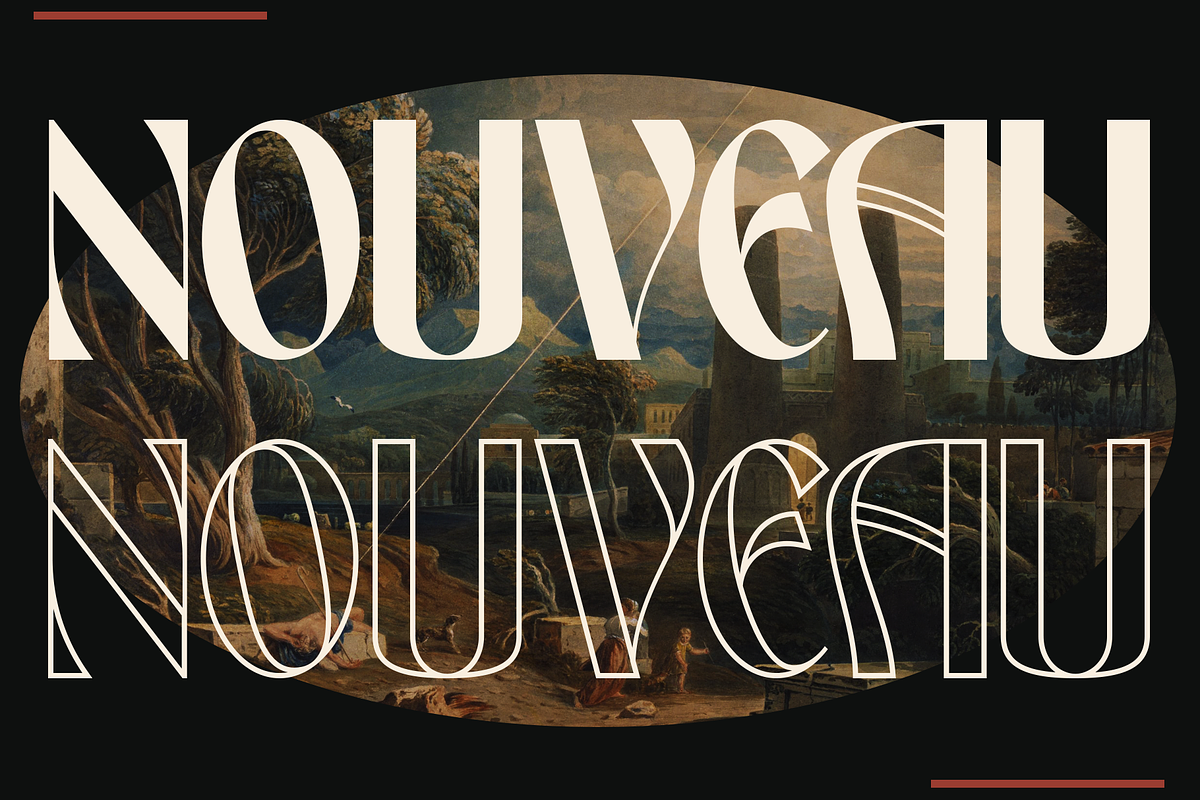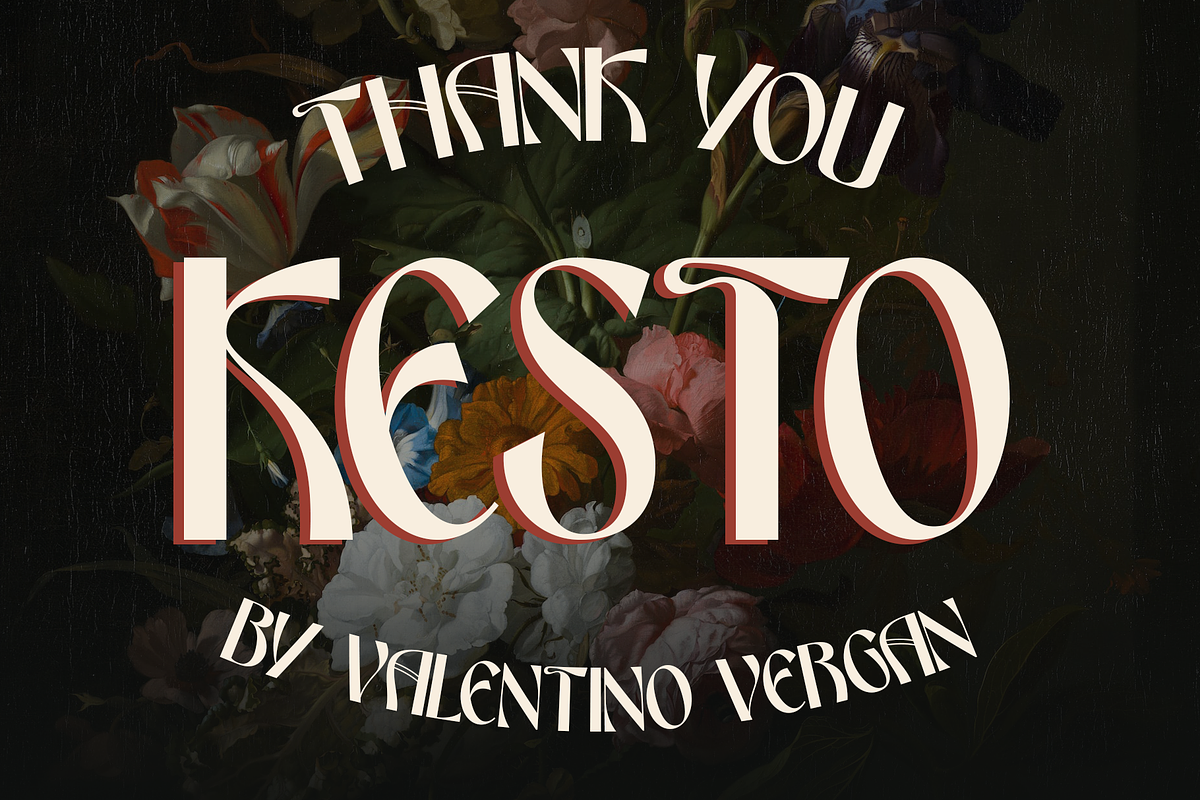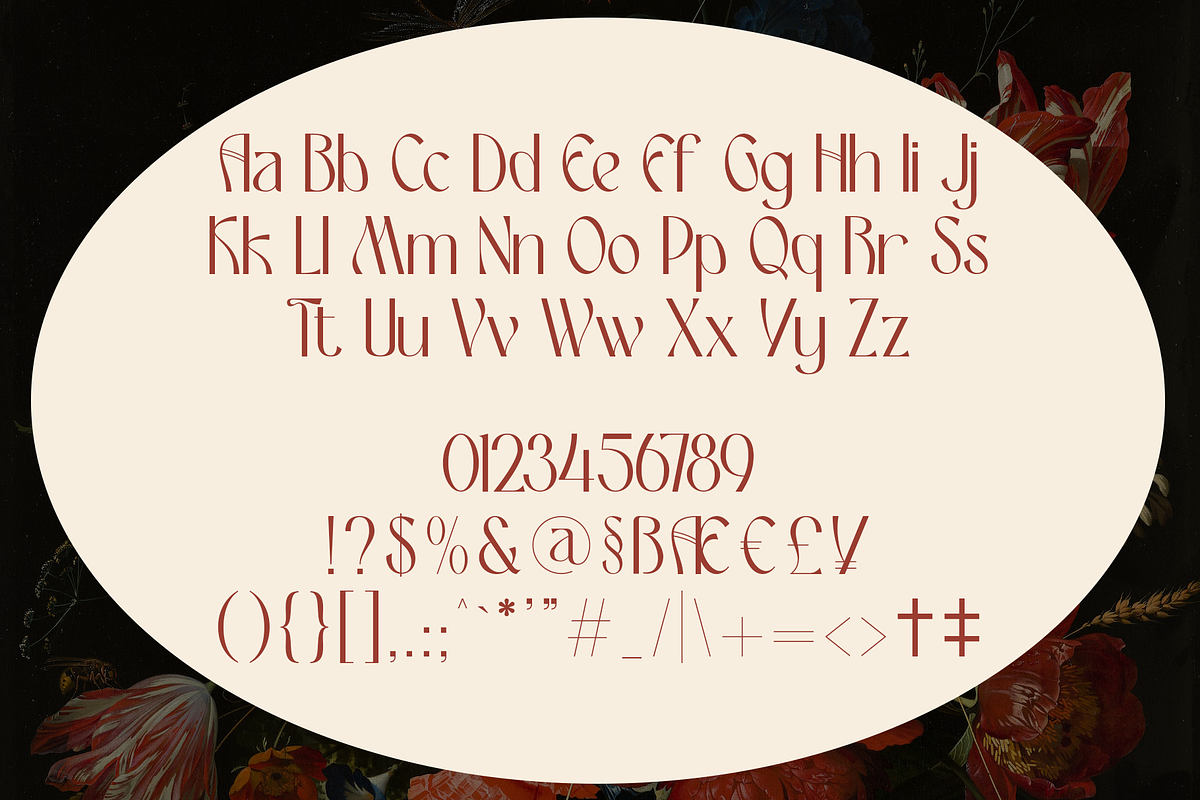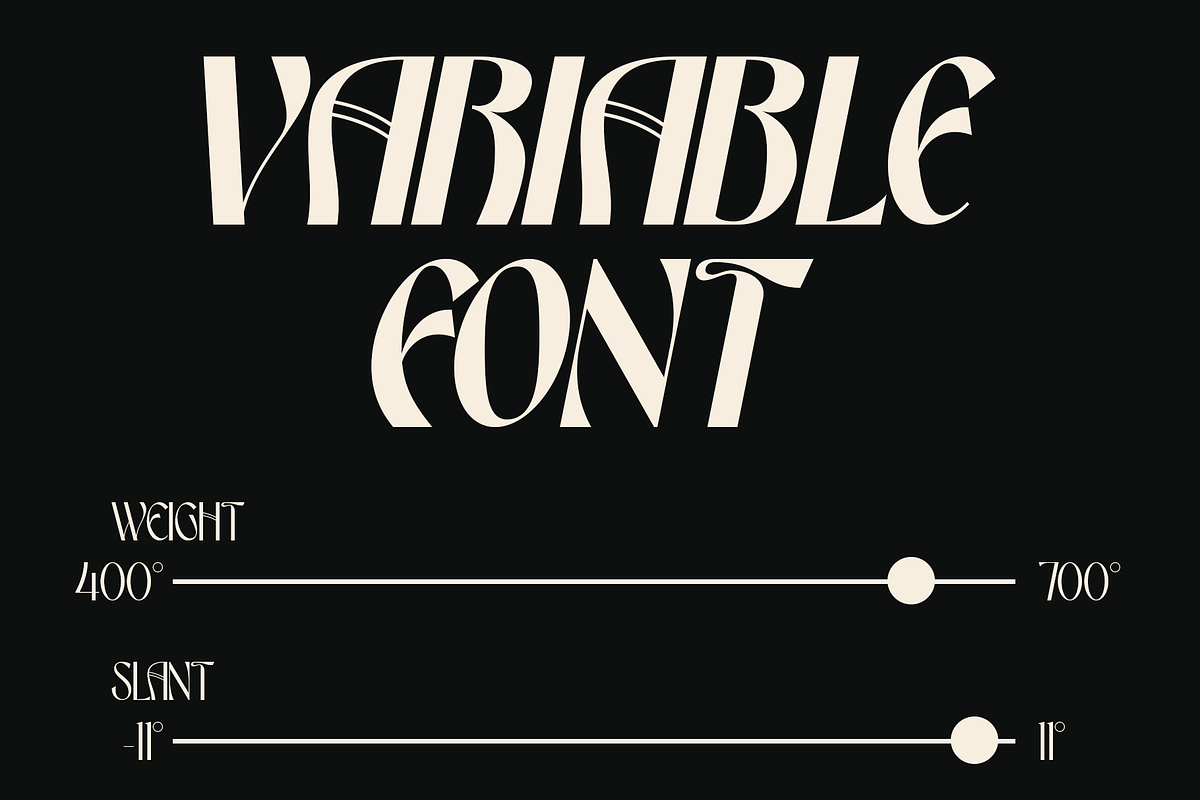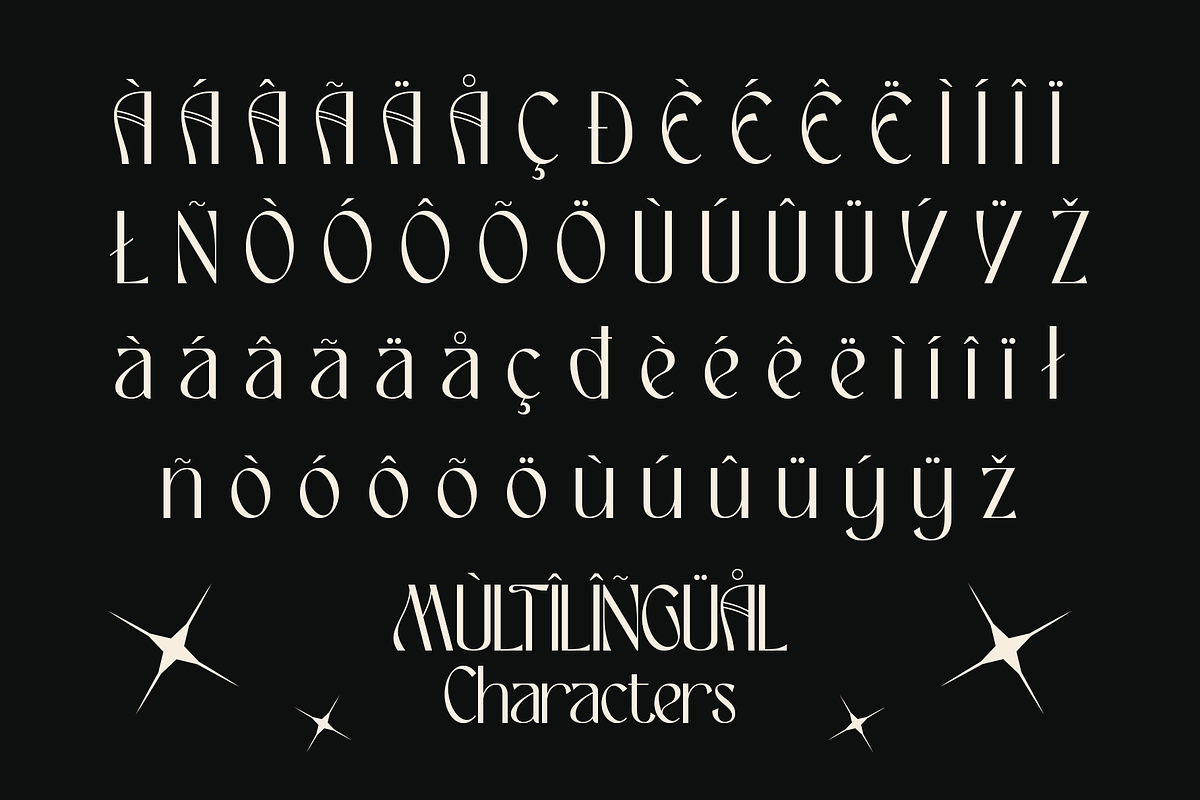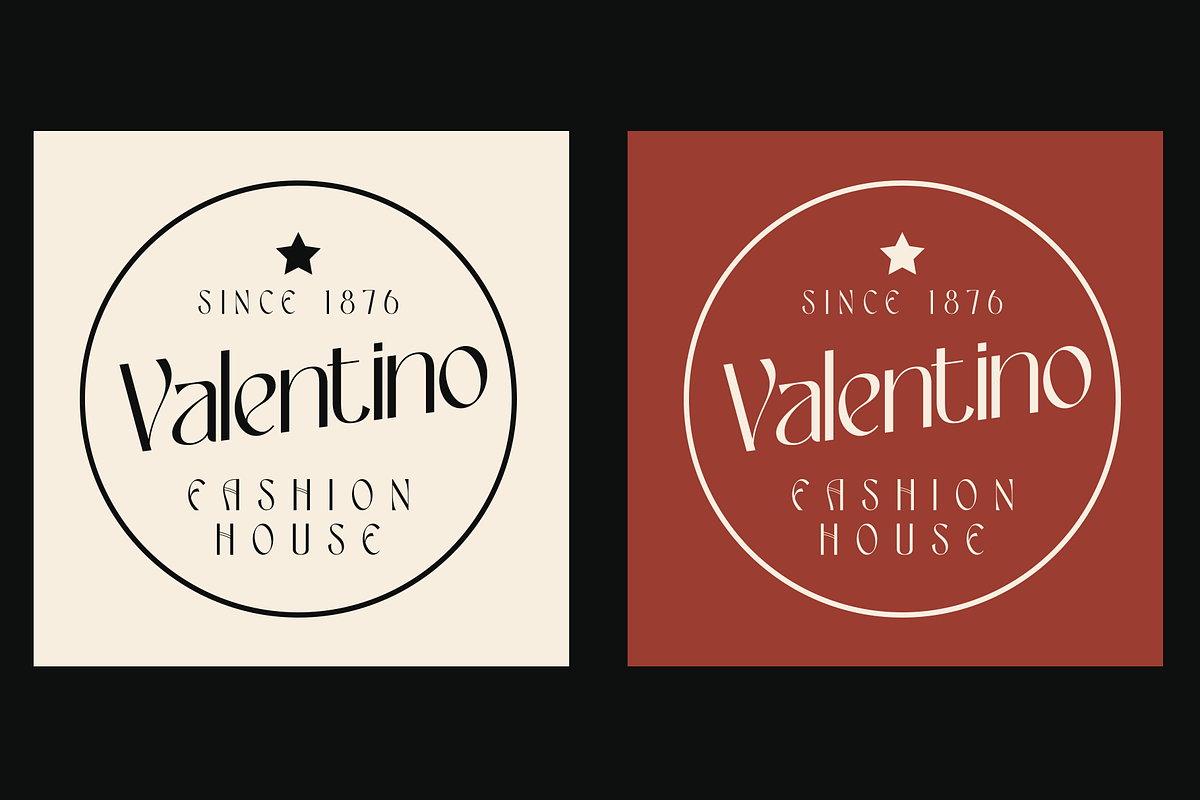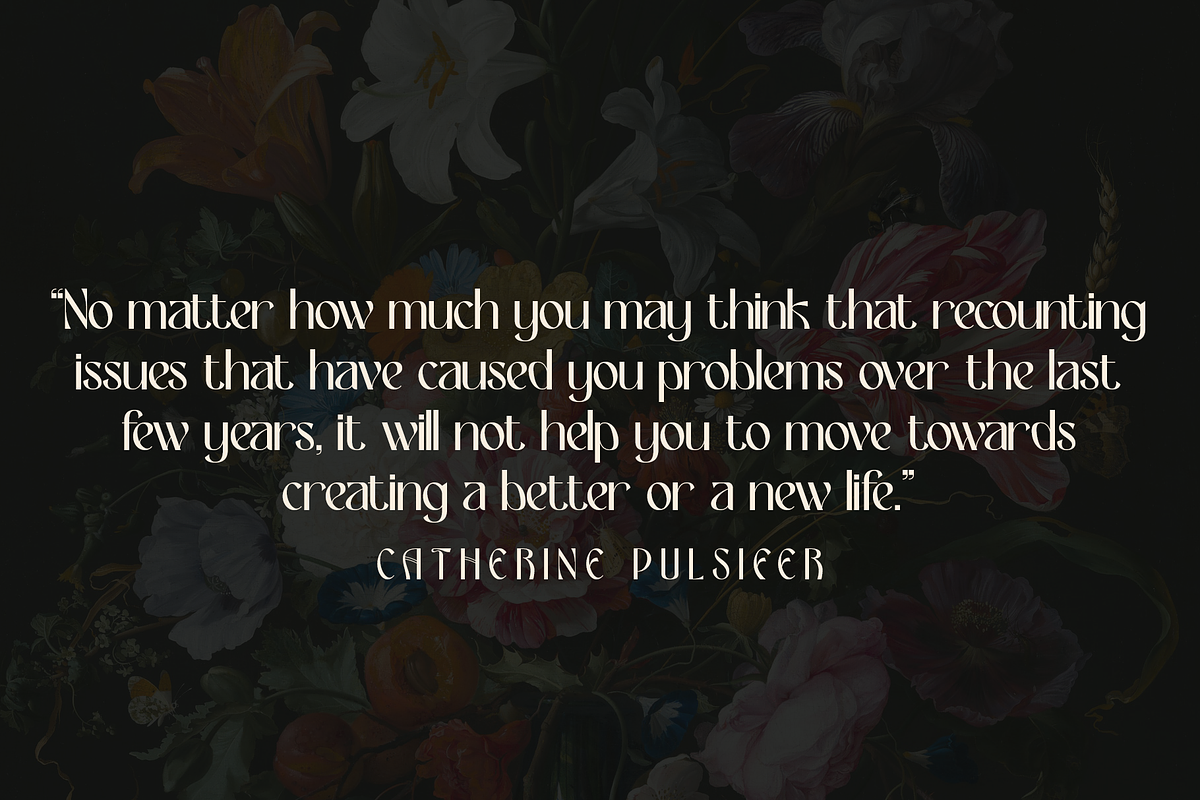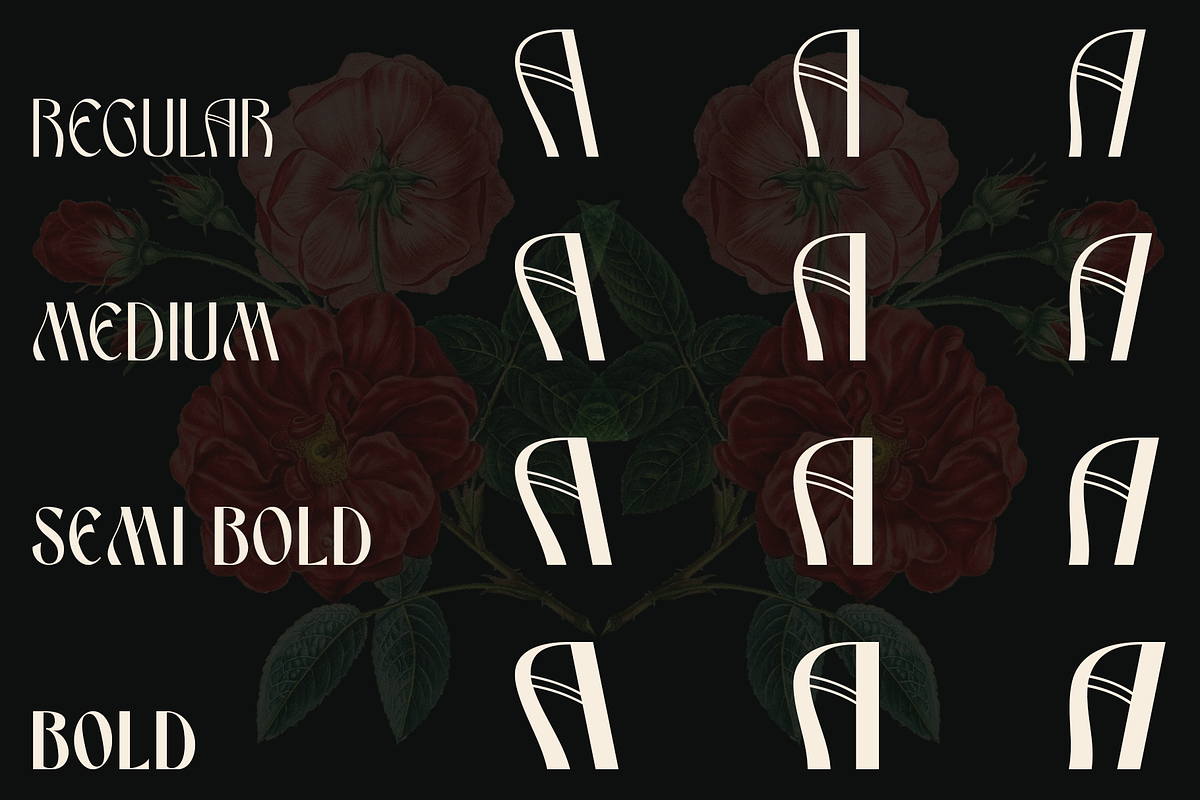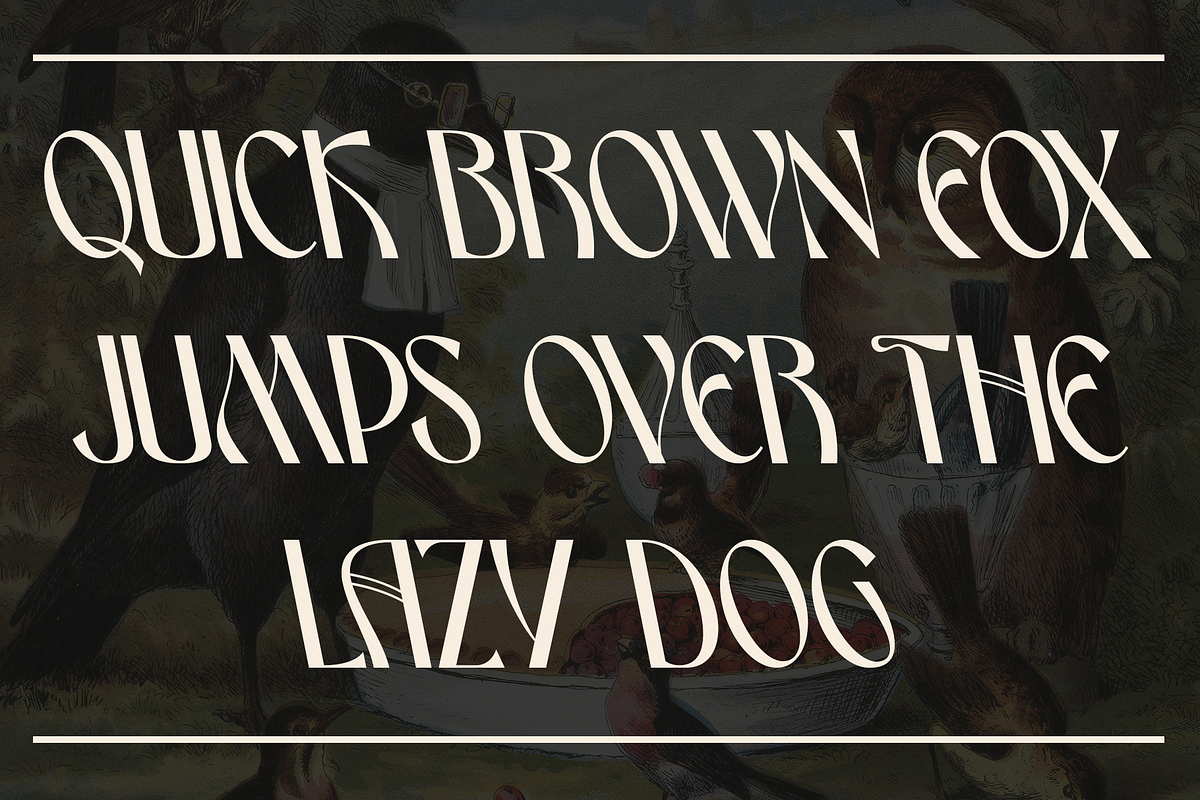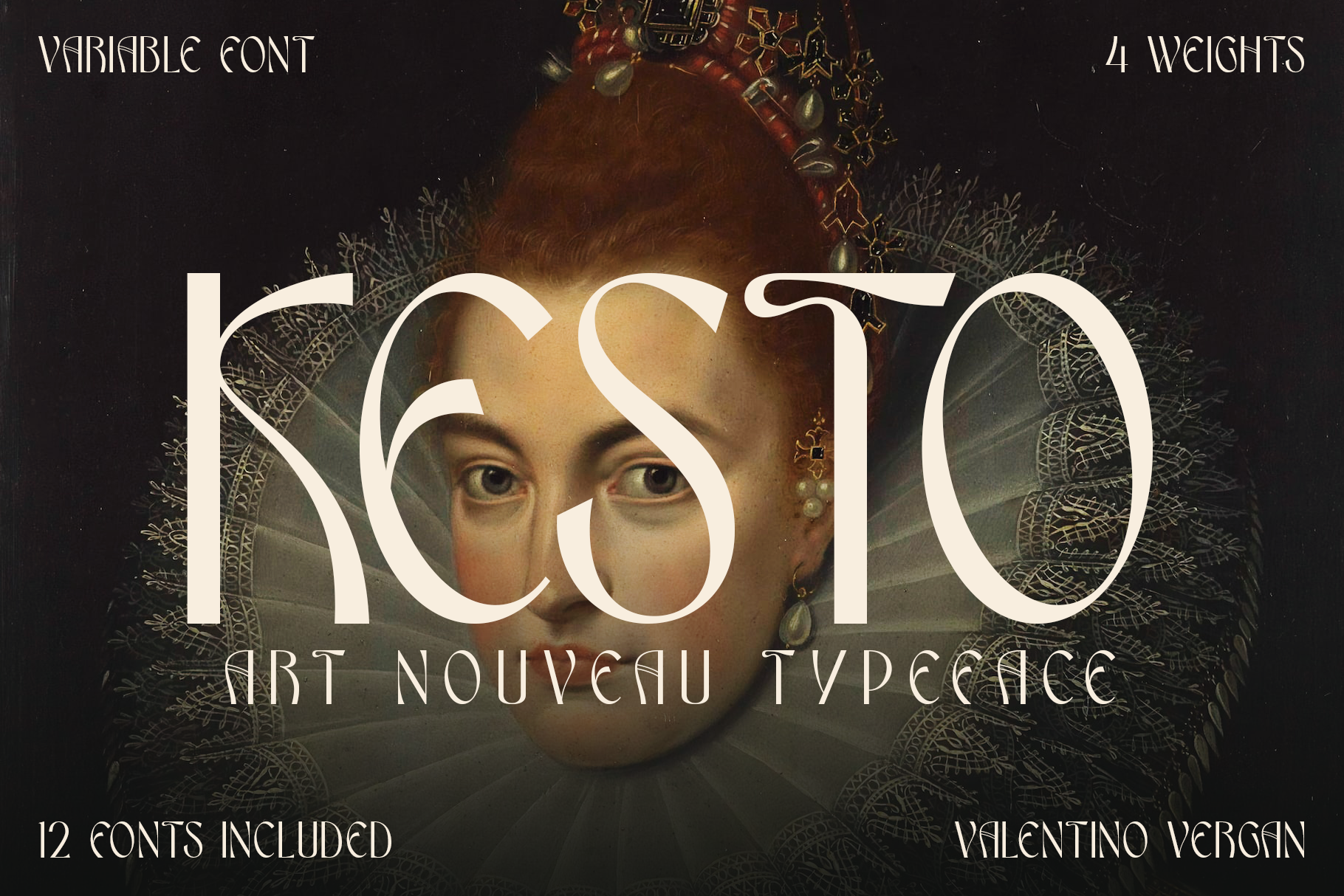
Kesto - Variable Nouveau Font Family
Kesto is a stunning variable font family inspired by the flowing lines and ornamental spirit of Art Nouveau, reimagined with a sharp, modern edge. Its elegant curves, high-contrast strokes, and unique stylistic flair make it an unforgettable choice for branding, editorial design, packaging, and standout headlines.
With its variable font technology, Kesto allows you to fine-tune weight and expression to suit any creative direction—from delicate and romantic to bold and commanding. This makes it the perfect typeface for designers looking to blend vintage sophistication with contemporary aesthetics.
Whether you’re crafting fashion campaigns, luxury packaging, or striking print layouts, Kesto delivers expressive elegance with creative control.
Bring timeless elegance into the now. Make your next project unforgettable with Kesto.